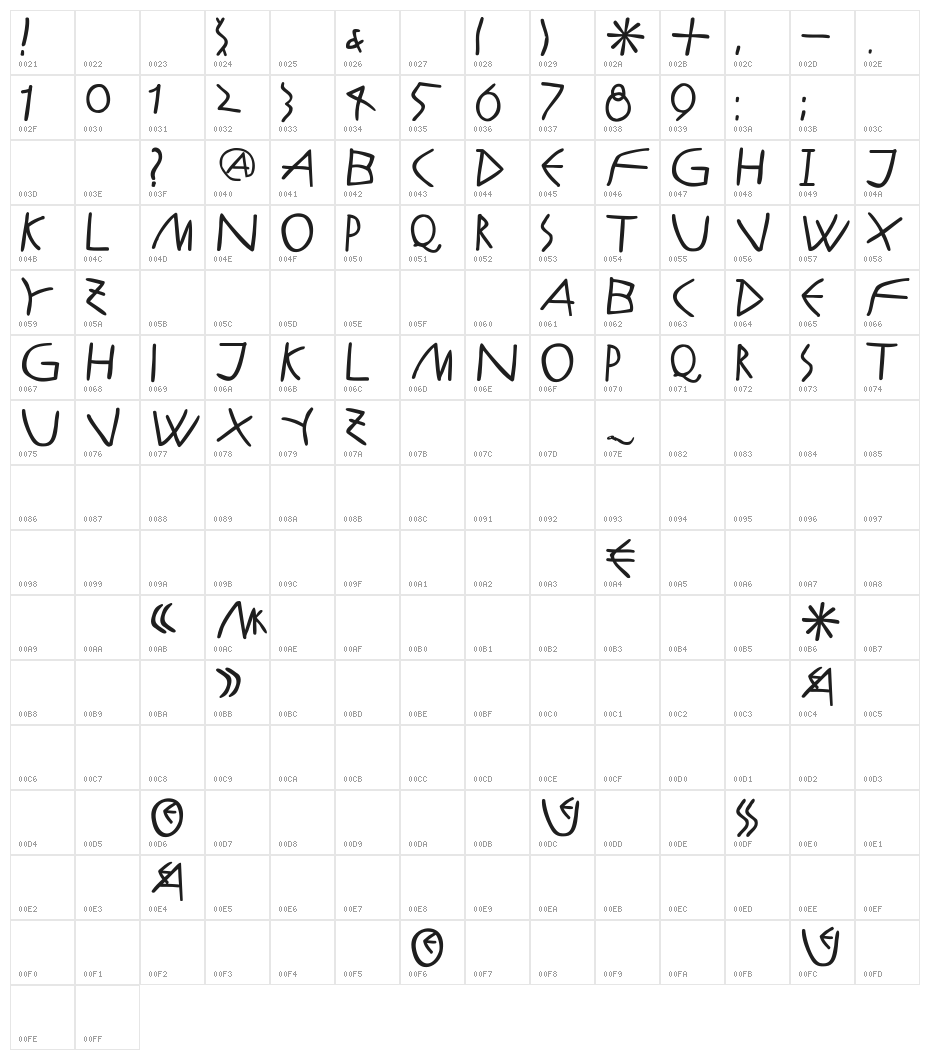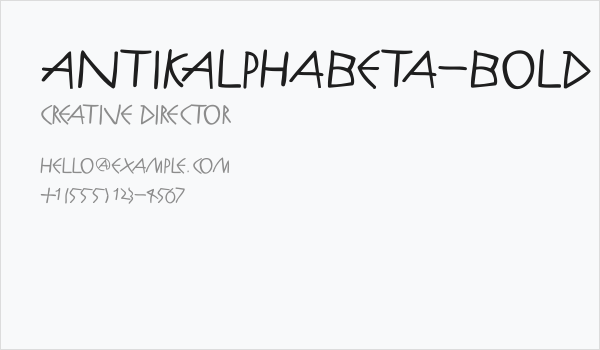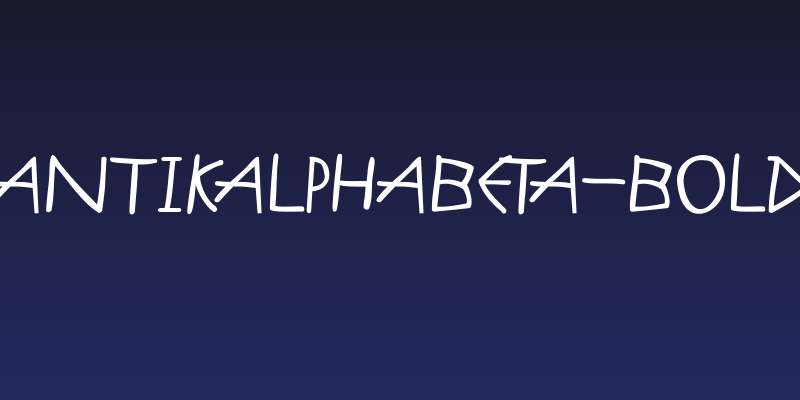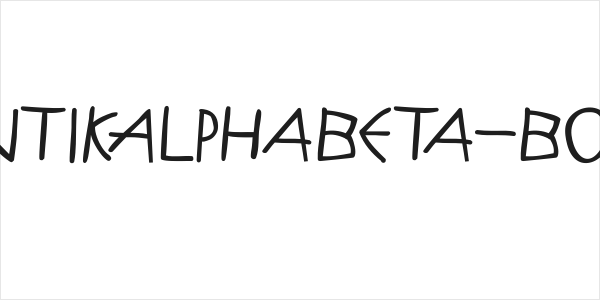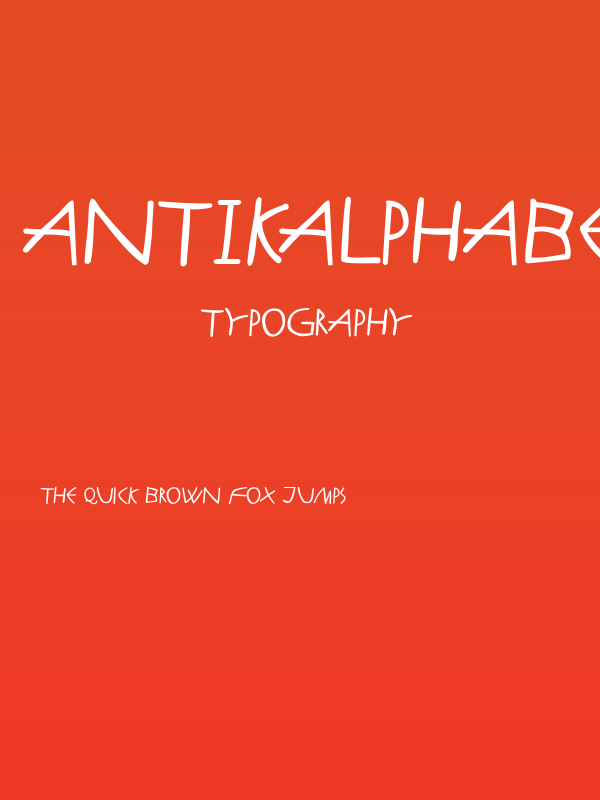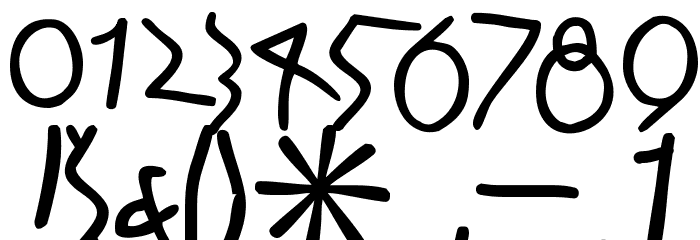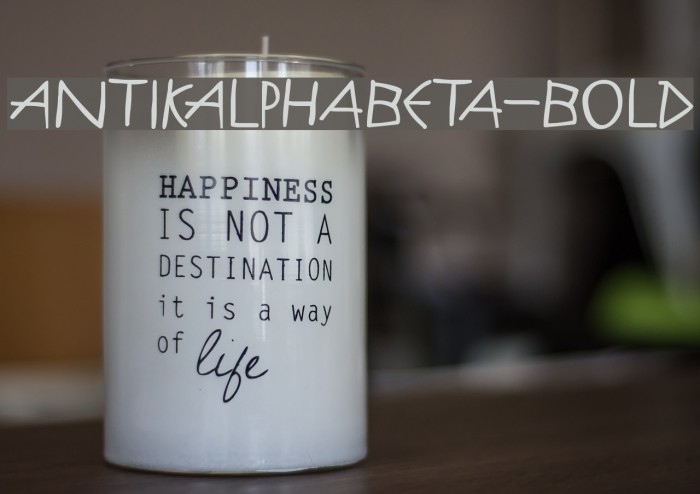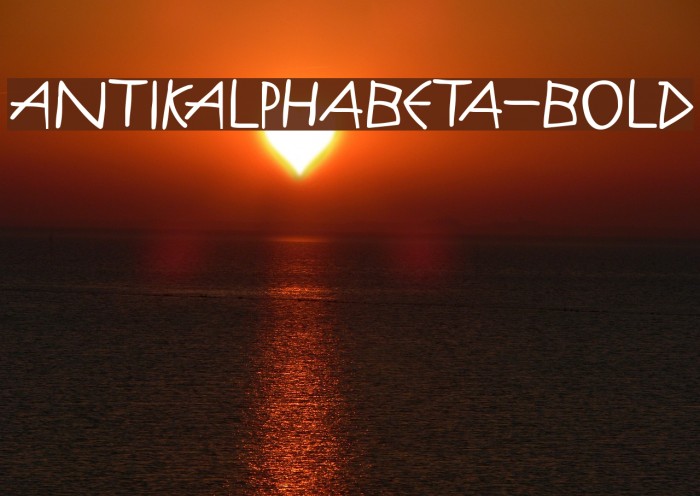
AntikAlphaBeta-Bold Font
AntikAlphaBeta-Bold Description
This font features a bold and dynamic style with a hand-drawn appearance. The characters exhibit a playful and slightly irregular form, giving them a unique and artistic flair. The uppercase letters are tall and slightly narrow, while the lowercase letters maintain a consistent height, contributing to a cohesive look. Numbers and special characters follow the same stylistic approach, ensuring uniformity across all glyphs. The strokes are thick and consistent, providing a strong visual impact. This font's distinctive style makes it suitable for creative and expressive design projects.
| Proposed Projects | Ideal for creative projects such as posters, album covers, children's books, and branding materials that require a unique and artistic touch. |